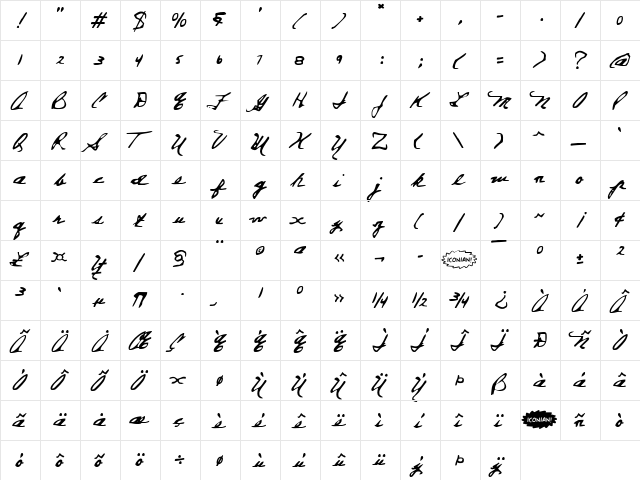
Everett Steele's Hand Regular
| Designer | Dan Zadorozny |
Design Context for Everett Steele's Hand Typeface
Everett Steele's Hand brings a calligraphic fluidity to the page — its connecting strokes and expressive curves give it an unmistakably human quality.
Font Pairing: Combine Everett Steele's Hand with a simple geometric sans for maximum contrast — the tension between flowing curves and clean structure is a classic typographic pairing.
Pro Tip: Use Everett Steele's Hand for short runs of text — names, titles, or taglines. Extended body copy in script faces tires the eye quickly.